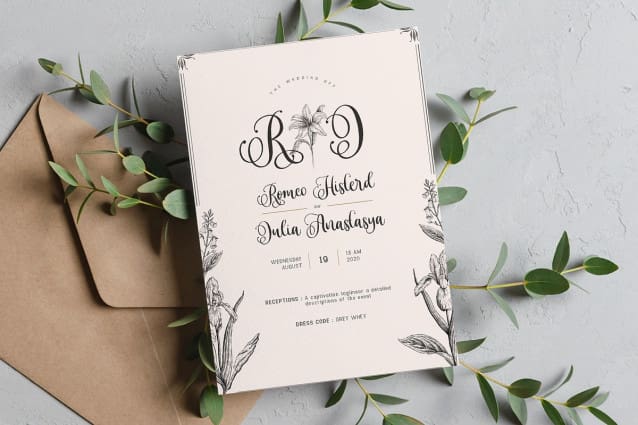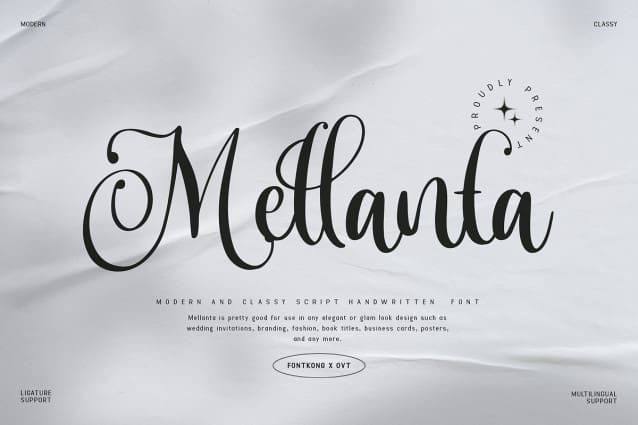
Mellanta Font
Mellanta Font, a modern and classy script handwritten font that exudes elegance and sophistication. Crafted with precision and care, Mellanta seamlessly combines contemporary style with timeless grace, making it the perfect choice for a wide range of projects.
With its fluid strokes and delicate flourishes, Mellanta Font  adds a touch of luxury to any design. Whether you’re creating wedding invitations, branding materials, or social media graphics, this font captures attention and leaves a lasting impression.
Designed for versatility, Mellanta offers a full range of characters, including alternates, ligatures, and swashes, allowing you to customize your typography to suit your unique vision. Whether you’re aiming for a romantic, whimsical feel or a more refined aesthetic, Mellanta delivers with elegance and charm.
Experience the beauty of handwritten sophistication with Mellanta and elevate your designs to new heights.